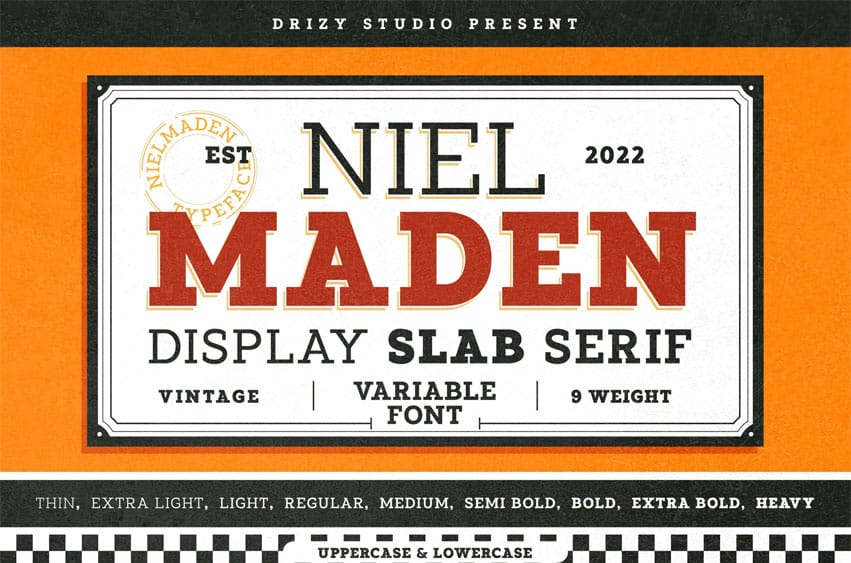
Nielmaden Font is bold vintage variable display font from drizy studio.
Offering all the basic styles you will need for a successful project.
Nielmaden Features: